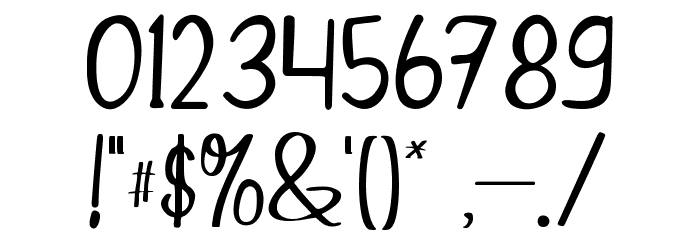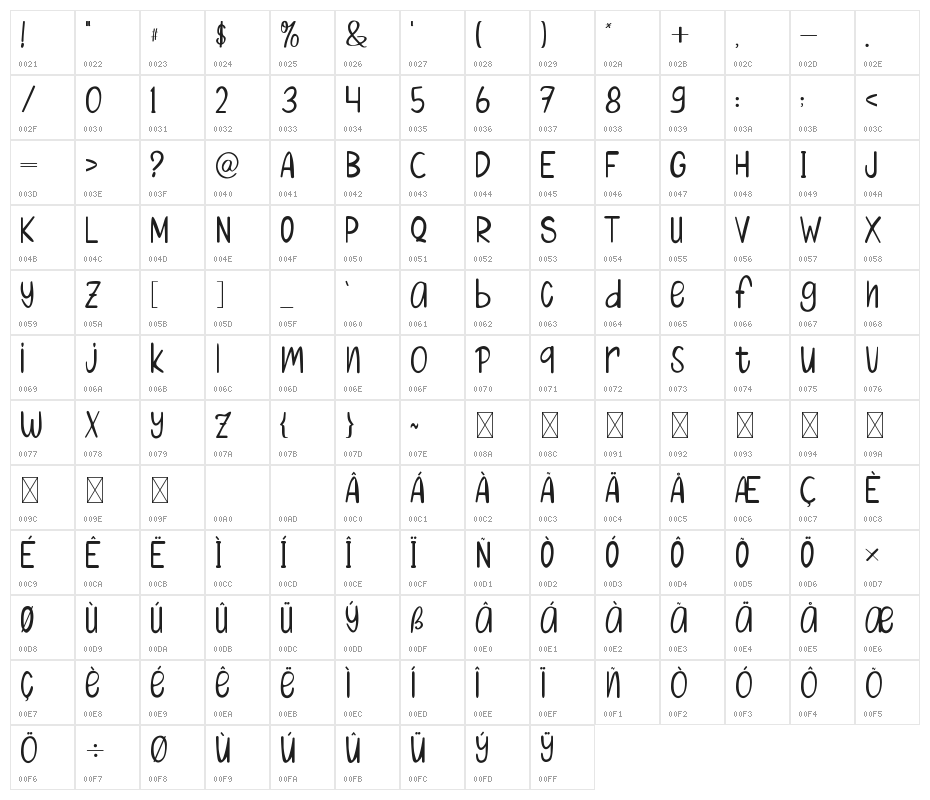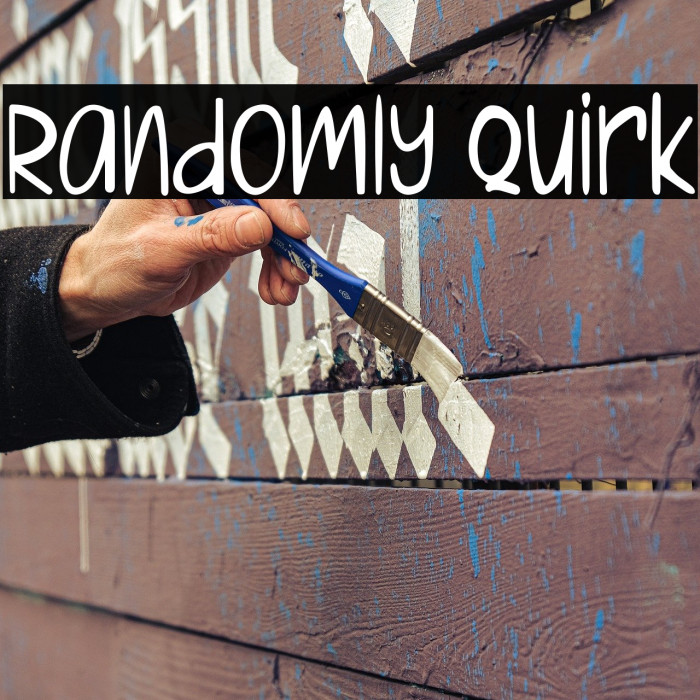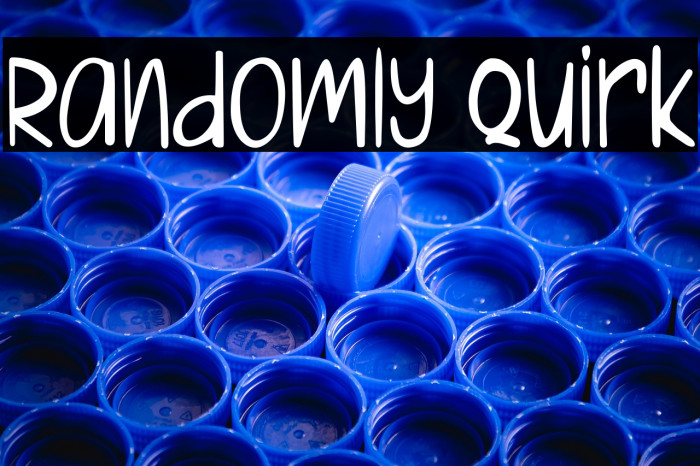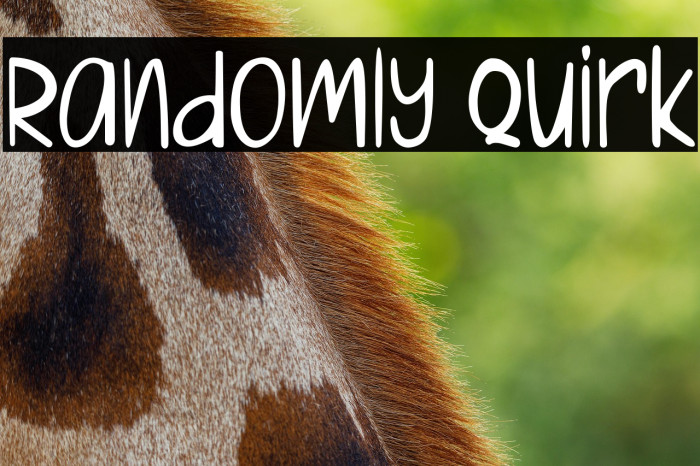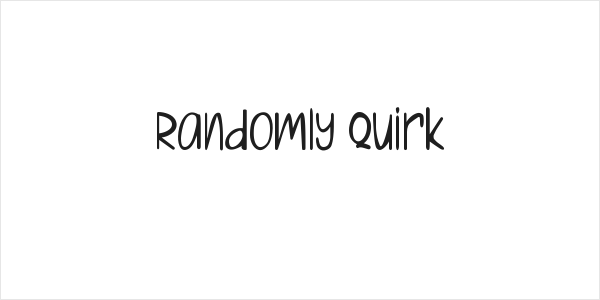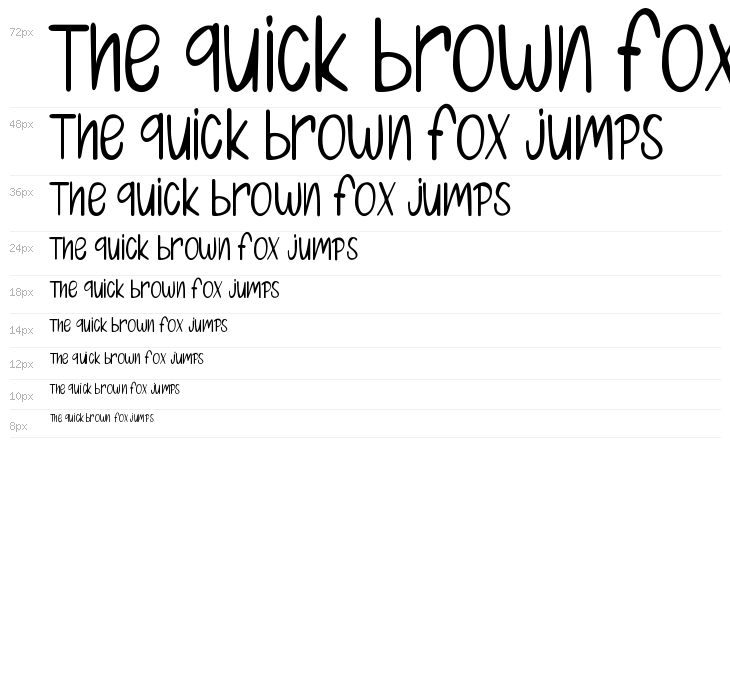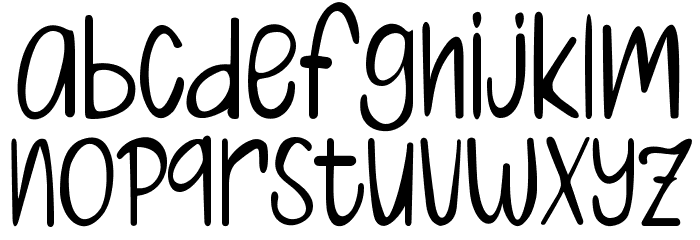
Randomly Quirk Font
Randomly Quirk Description
This playful and quirky font features a handwritten style with a whimsical touch. The characters are tall and slightly narrow, with a mix of rounded and angular elements that give it a unique personality. The uppercase letters are bold and prominent, while the lowercase letters maintain a consistent flow with a casual feel. Numbers and special characters are designed to match the overall playful aesthetic, making this font suitable for creative and fun projects. The strokes are consistent in weight, providing a balanced appearance across all characters.